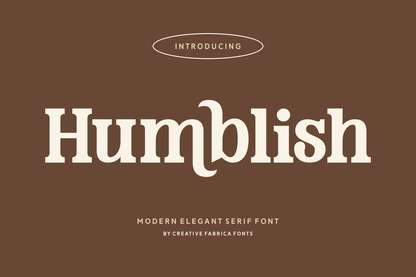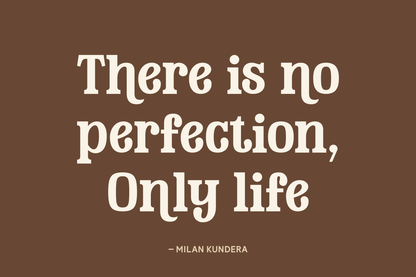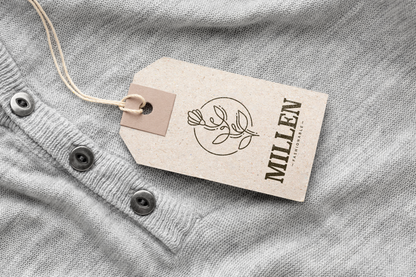
Humblish is a modern elegant serif font that pairs simplicity with a quirky personality. Featuring unique letterforms and playful curves, it’s great for editorial use, packaging design, and boutique branding. Subtle character, big impact.
Charming, confident, and full of flavor.